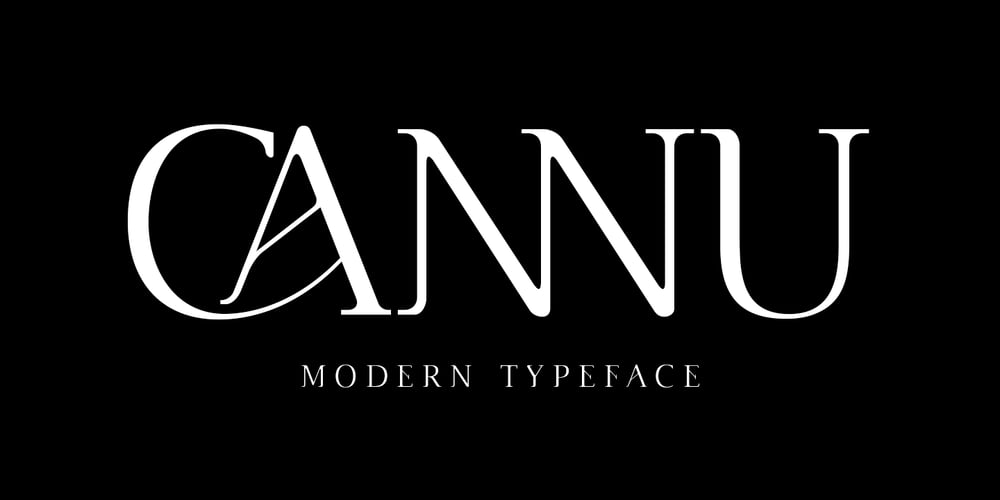
Cannu Font Family was designed by Yusup Saputra and published by DYSA Studio. Cannu contains 1 styles and family package options. Cannu is a Modern Typeface. This another collection of Serif is perfect for your next branding project, excellent for your business. Cannu have a smooth edges, so this font gives an authentic handcrafted feel style.Cannu is perfect choice for people looking for clean, modern, minimalist, elegant, beauty design styles.Suitable for almost any graphic designs such as logo, branding materials, business cards, gift cards, t-shirt, cover, thumbnail, print, poster, photography, quotes .etc